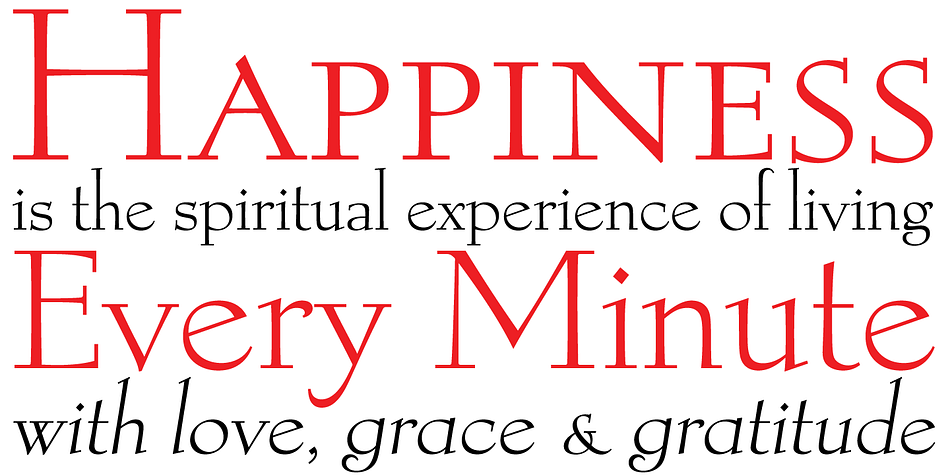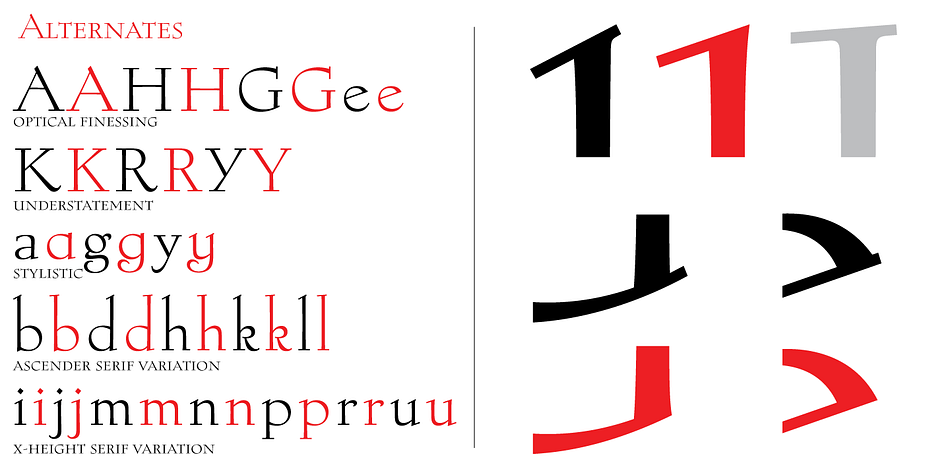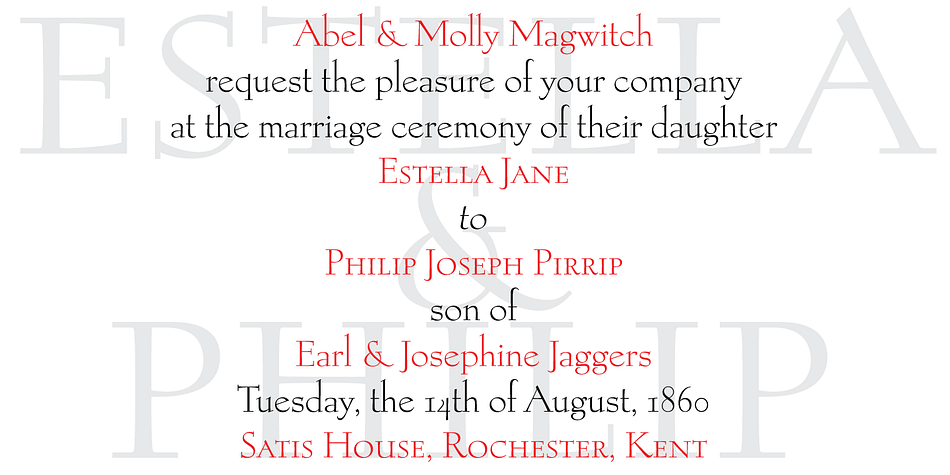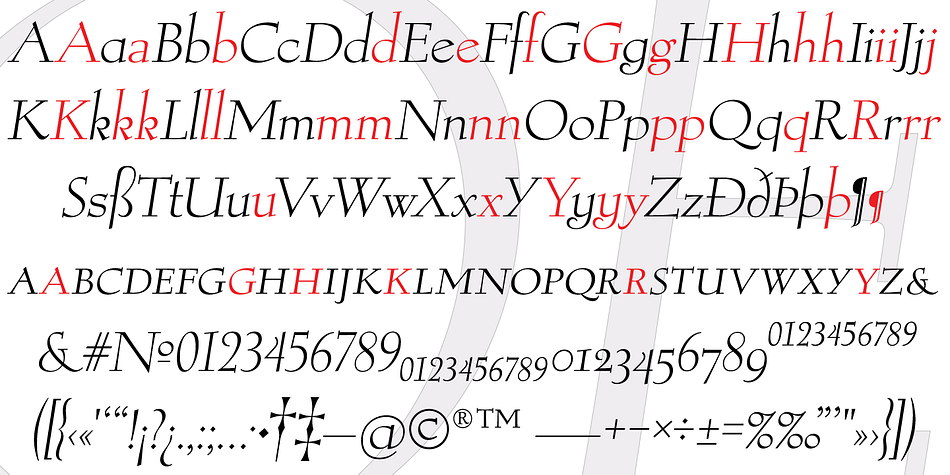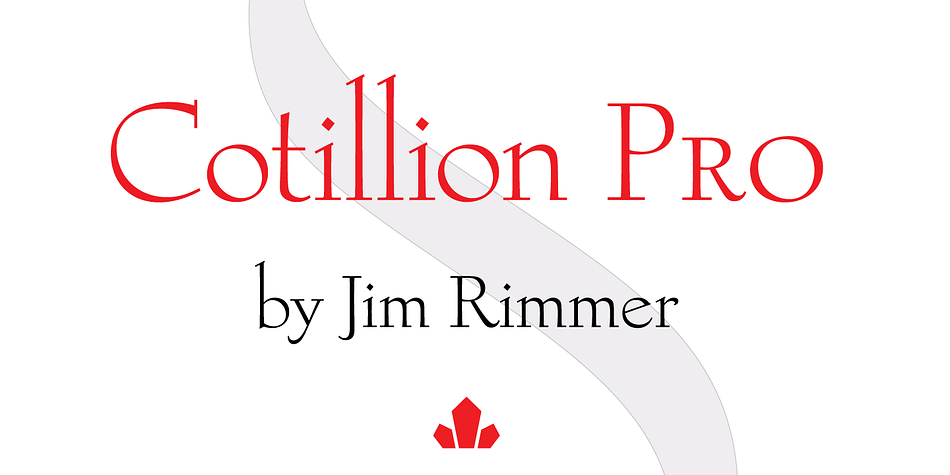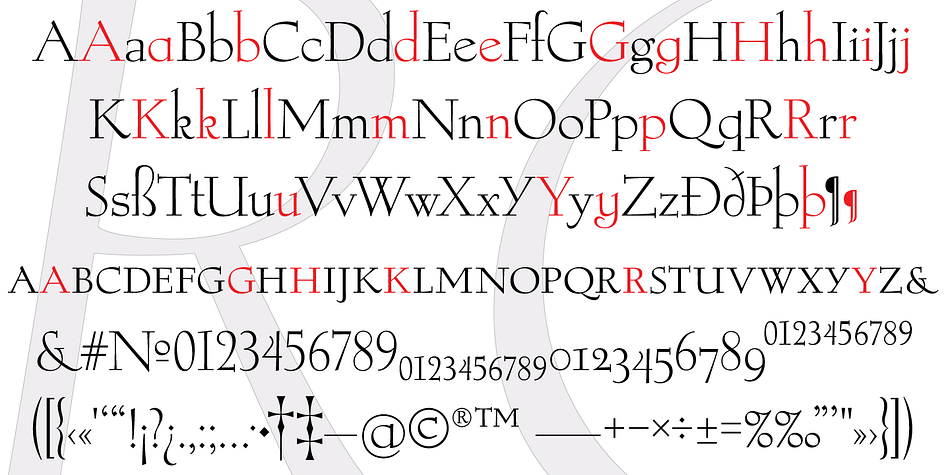
Cotillion Pro is a serif font family. This typeface has two styles and was published by Canada Type.
Cotillion is an original design Jim Rimmer finished just before the turn of the century. Alongside its evidence of Jim’s nostalgia at the deco type designs he was exposed to as a child, it distinctly shows a type designer who has become very comfortable with that rarest of design abilities: Bringing efficient typographic solutions to what is essentially a calligraphic endeavour.
This design has all the elements of what made a traditional deco typeface display unmistakable elegance and luxury: The expressively low x-height, the precisely calculated upwards comfort and reserved grace of the vertical metrics, the subtle fusion of calligraphic ornamentation and clean minimalist type technique, and the unique indentity of the original lowercase flow.
Cotillion was refined and remastered in 2012 to include a weath of aesthetic and functionality improvements. This Cotillion Pro set includes small caps, true italics, ligatures, seven types of figures, automatic fractions, extended Latin language support, stylistic alternates that include lowercase serif angle options, and plenty of extra OpenType features like caps-to-small-caps substitution, case-sensitive positioning, ordinals, and extended class-based kerning. At over 780 characters, each of the Cotillion Pro fonts is the equivalent of three fonts in one.